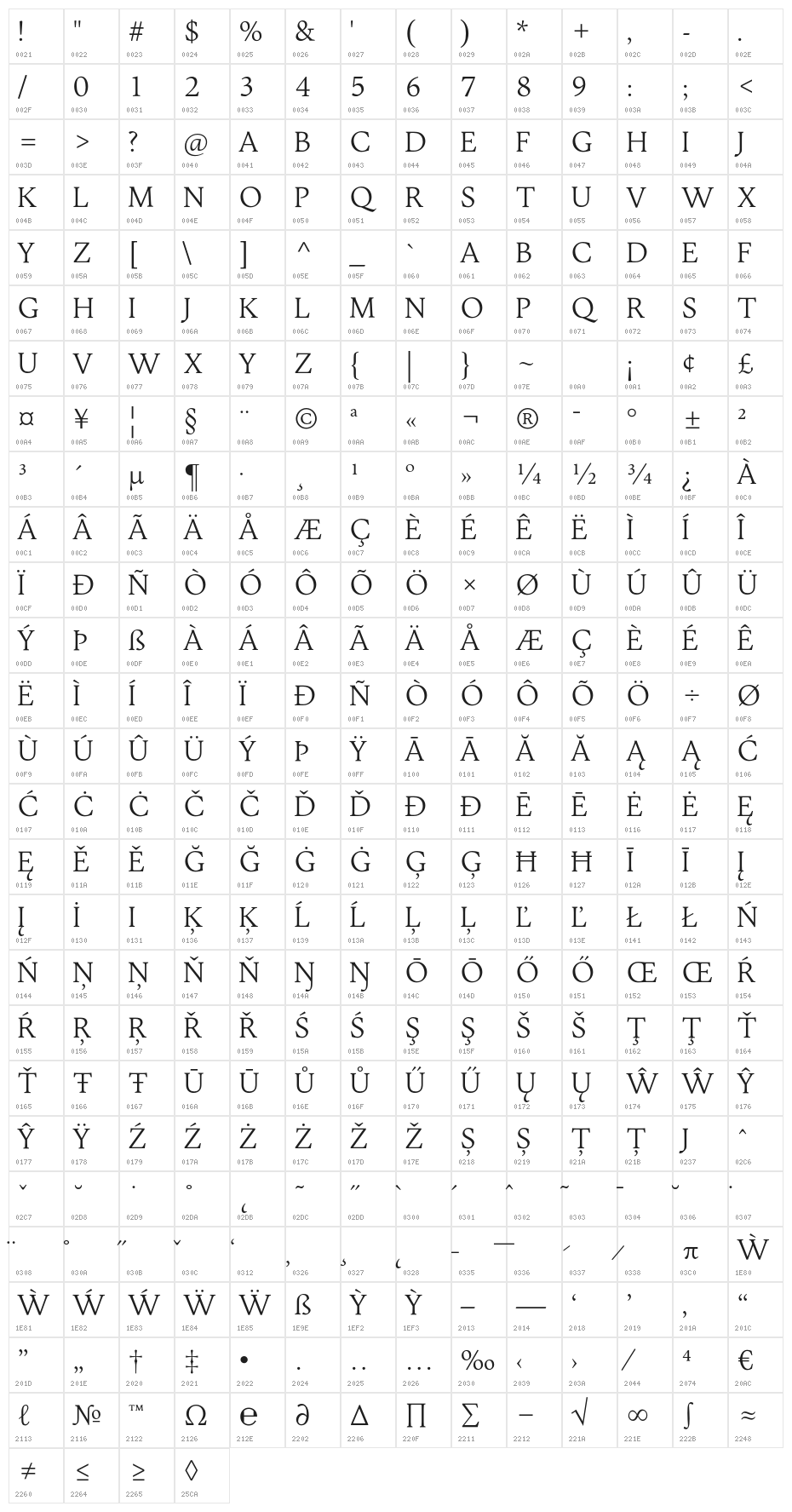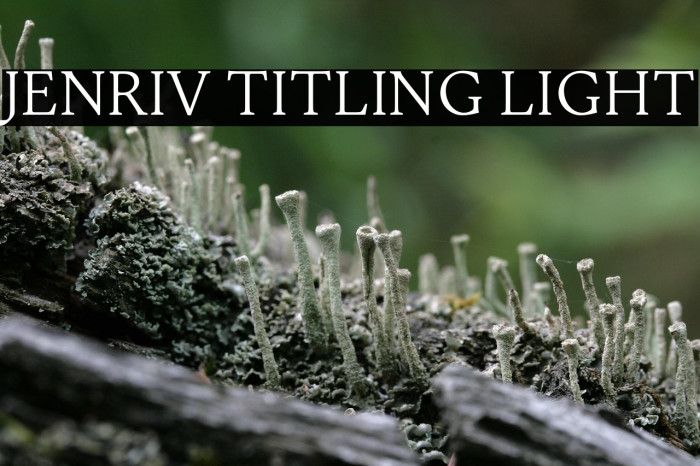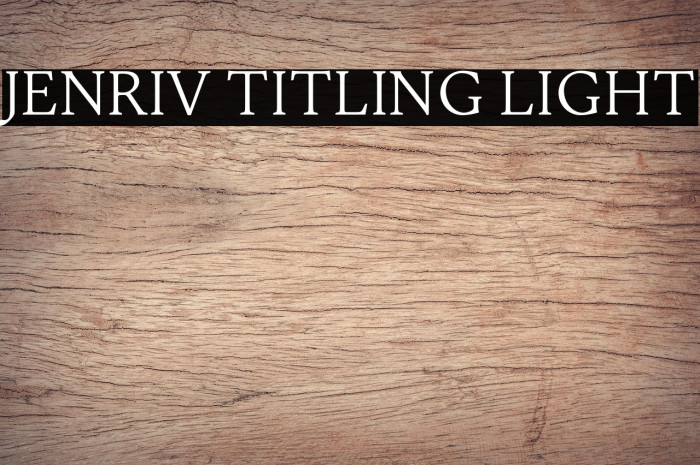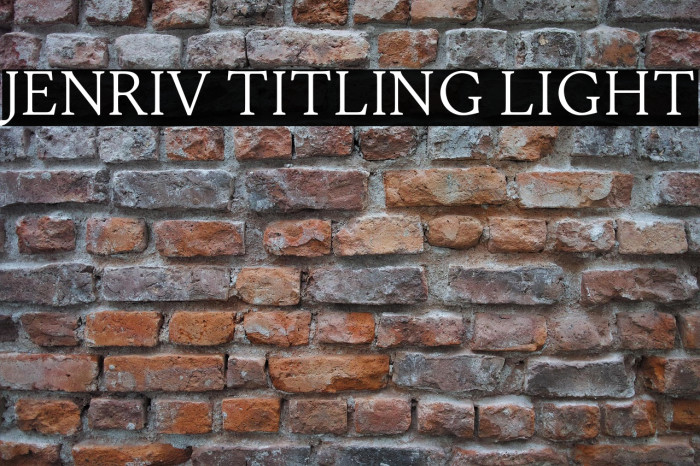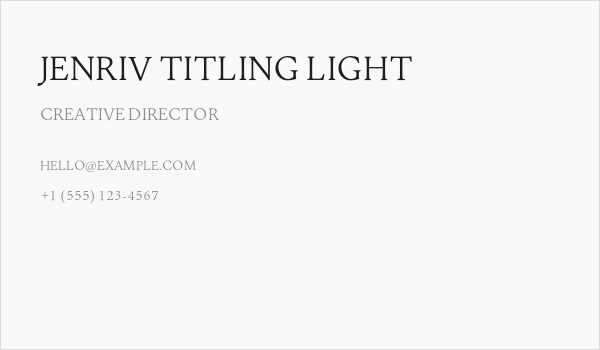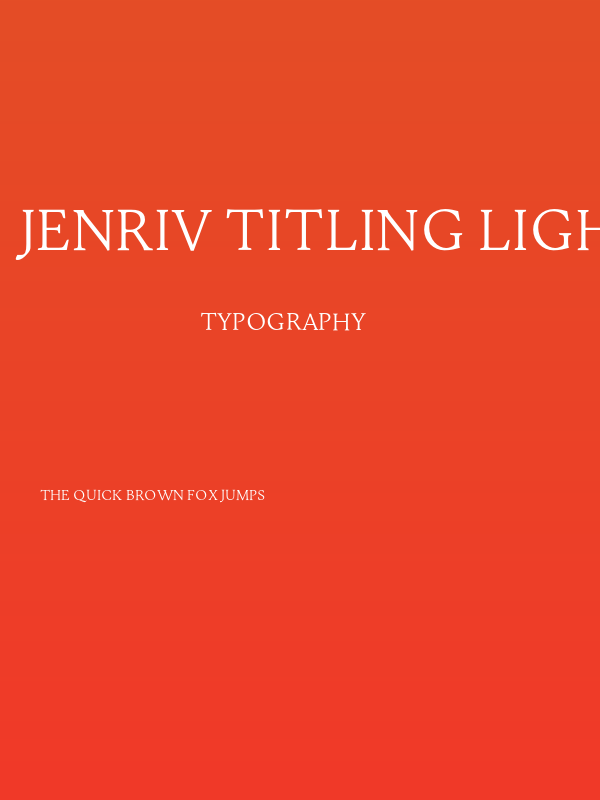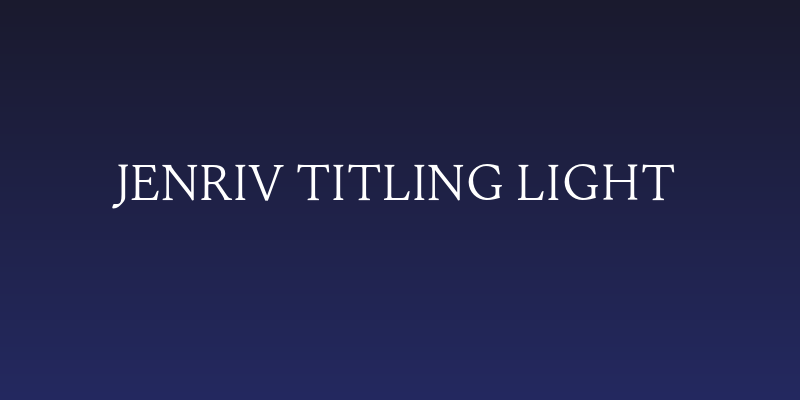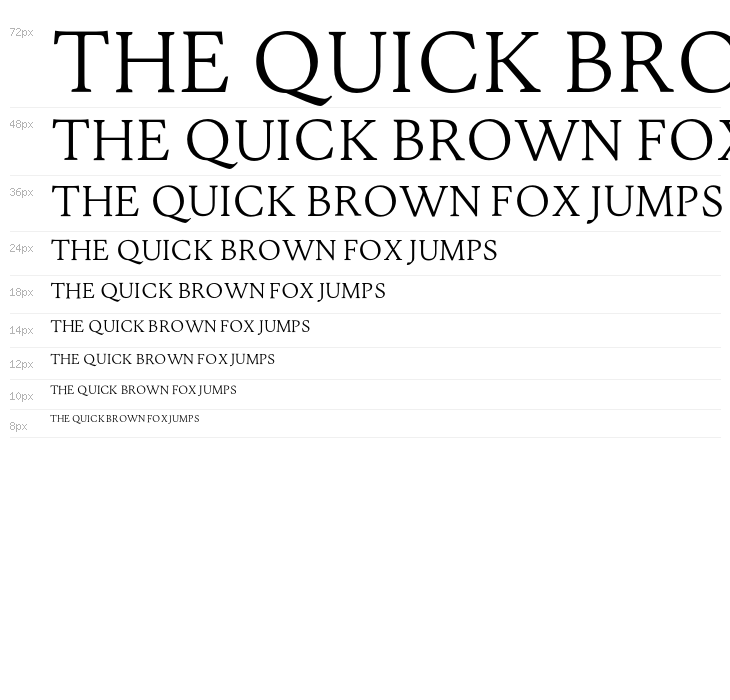
Jenriv Titling Light Font
Jenriv Titling Light Description
This font exudes a classic elegance with its refined serif design. The characters are well-proportioned, featuring delicate serifs that add a touch of sophistication. The uppercase letters are stately and commanding, while the lowercase letters maintain a graceful flow. The numerals are clear and balanced, ensuring readability. Special characters are thoughtfully designed, maintaining the overall aesthetic. This font is ideal for projects that require a touch of tradition and formality, such as invitations, formal documents, or branding for luxury products.
| Proposed Projects | Ideal for invitations, formal documents, luxury branding, and editorial design. |